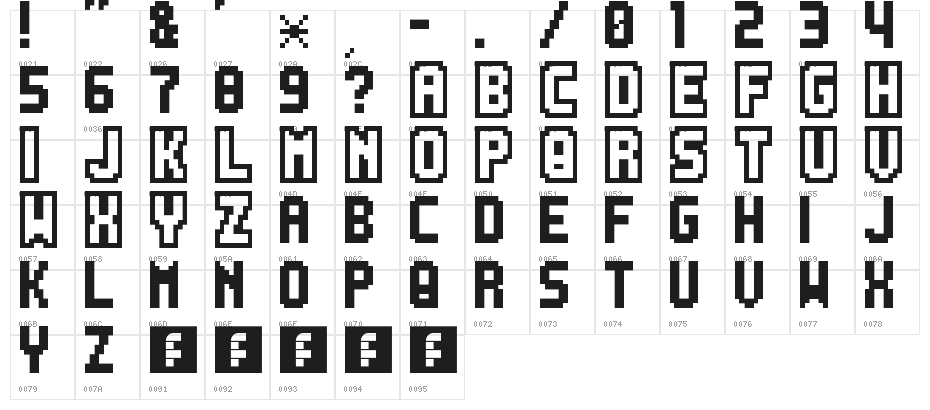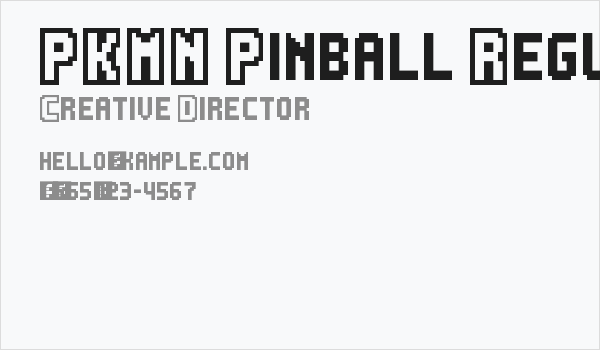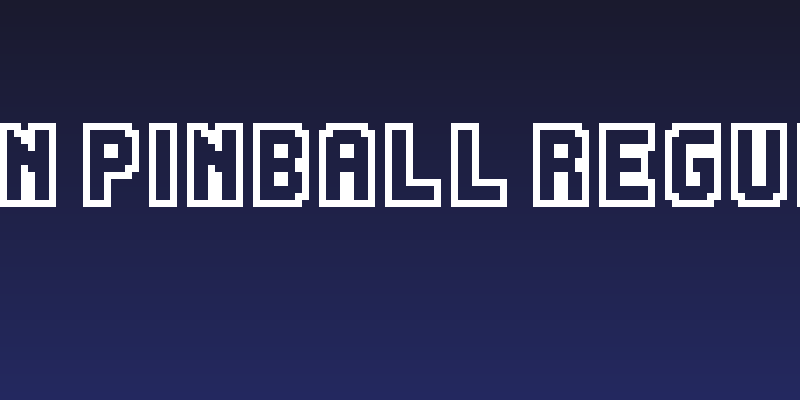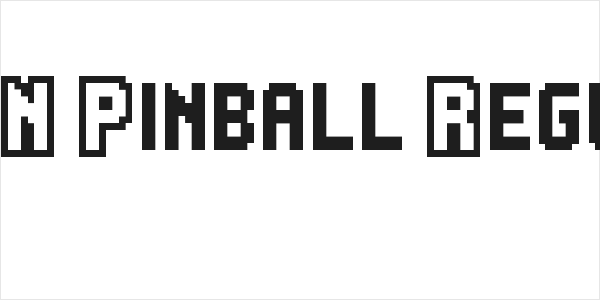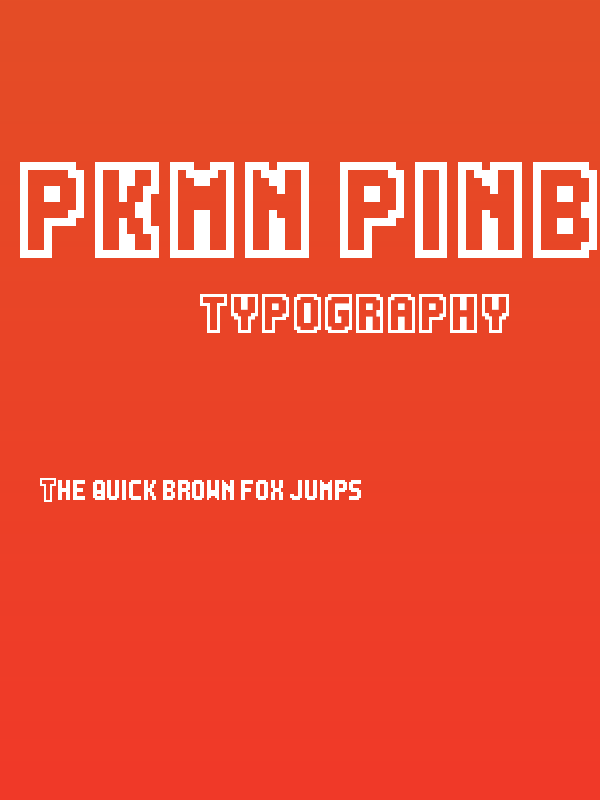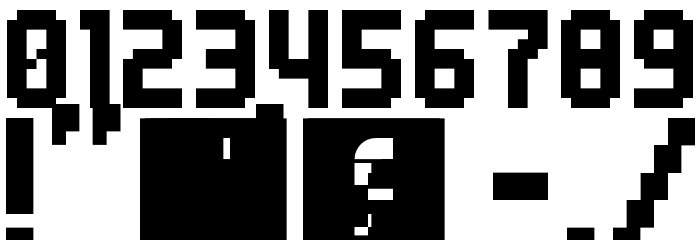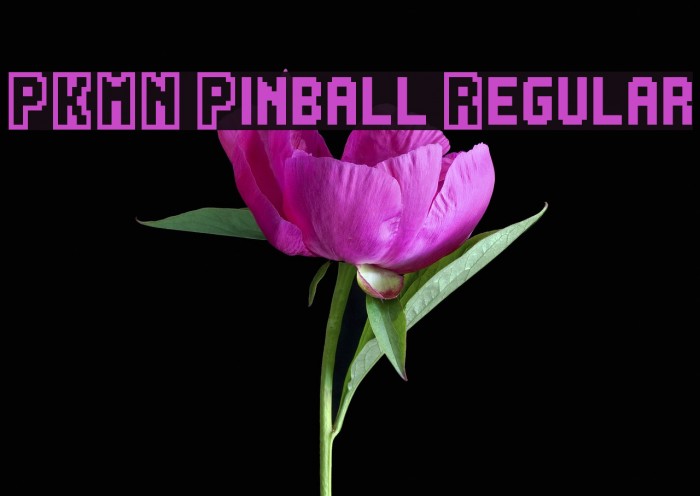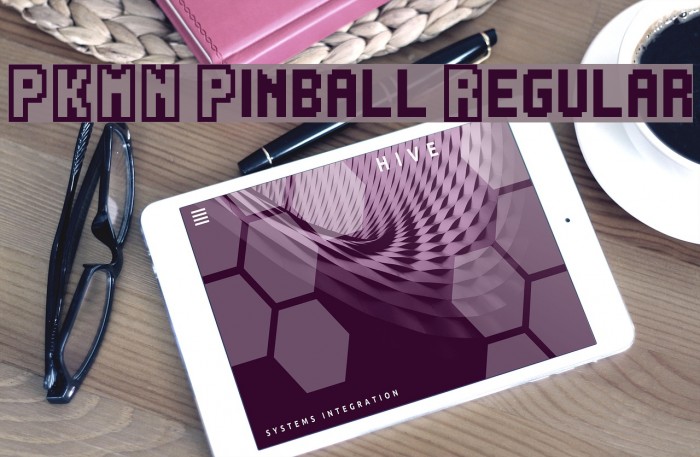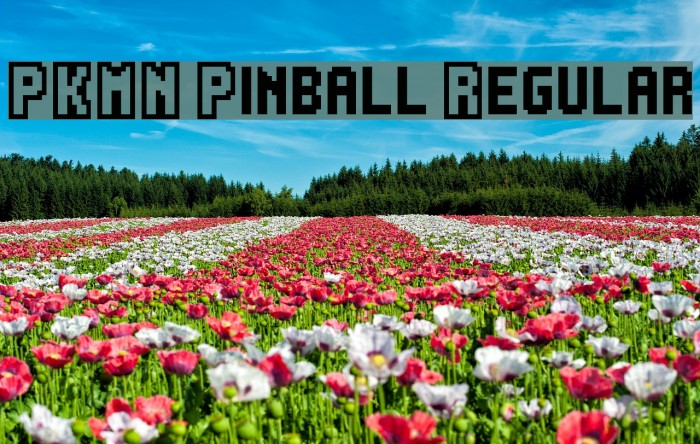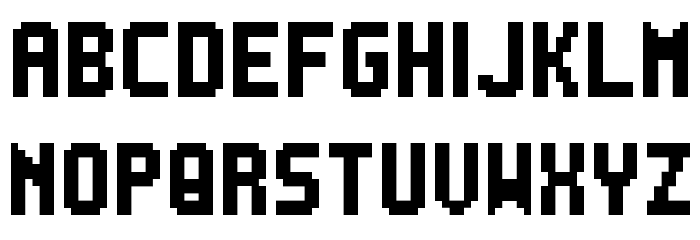
PKMN Pinball Regular Font
PKMN Pinball Regular Description
This font features a bold, pixelated style reminiscent of retro video games. The characters are constructed with a blocky, geometric design, giving it a distinctly digital appearance. Each letter and number is composed of uniform squares, creating a cohesive and structured look. The uppercase and lowercase letters maintain a consistent height, while the numbers are slightly taller, enhancing readability. The special characters are integrated seamlessly, maintaining the overall pixelated theme. This font is ideal for projects that aim to evoke nostalgia or a classic gaming aesthetic.
| Proposed Projects | Video game design, retro-themed posters, digital art, and nostalgic branding. |